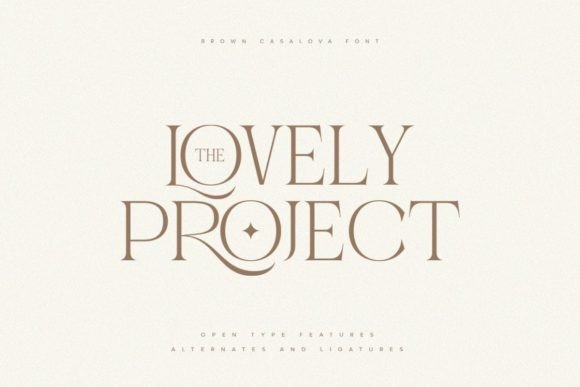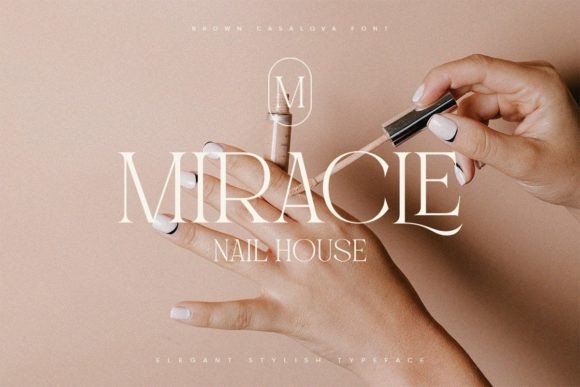
Brown Casalova Font
Brown Casalova is a stylish and elegant serif font. It is the best choice for creating eye-catching logos, branding, and quotes. Every letter has a unique and beautiful touch, which will make your design come alive!